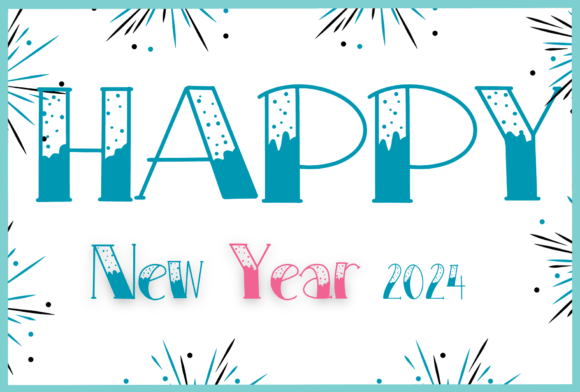
The Perfect Font for a Bright New Year
As you sit down to plan your next creative project, have you ever found yourself stuck in a design rut? You’ve got a great idea, but something’s missing – that special something that takes your design from ordinary to extraordinary. For many designers, the answer lies in the right font. And, if you’re looking for a font that’s sure to bring a touch of festive flair to your creations, look no further than the Happy New Year Font.
This lovely display font is designed to elevate any project, whether you’re working on a holiday-themed campaign, a New Year’s celebration invitation, or simply a design that needs a little extra sparkle. With its festive feel and versatility, the Happy New Year Font is an invaluable asset to any designer’s library, and a must-have for anyone looking to add a little extra joy to their designs.
Happy New Year Font Key Features
- Font Family: A unique and stylish font designed specifically for New Year’s celebrations, with a bold and festive feel.
- Unique Characteristics: The font features intricate and dynamic designs, with a mix of modern and traditional elements, making it perfect for adding a touch of elegance and sophistication to New Year’s-themed designs.
Happy New Year Font Review
Overall, I think the Happy New Year Font has some great qualities, but it’s not without its limitations.
- Unique and festive design that captures the spirit of New Year’s celebrations
- Wide range of font styles, from bold to cursive, to suit various design needs
- Good for use in invitations, social media posts, and other short-form content
- Limited scalability: may become pixelated or distorted when enlarged
- Not ideal for long-form content, such as articles or essays
- Some font styles may be too flashy or overwhelming for certain designs
I think the Happy New Year Font is a fun and festive addition to any design project, but it’s essential to use it judiciously. While it excels in short-form content and festive designs, it may not be the best choice for more formal or lengthy projects. With a little creativity and restraint, however, it can add a lot of personality to your designs.
Getting the Most Out of the Happy New Year Font
For optimal results, use the Happy New Year font in conjunction with bold and italic text to create a festive and celebratory feel. You can also use the font in conjunction with graphics and images to create eye-catching designs.
The Happy New Year font is ideal for use in New Year’s Eve invitations, party decorations, and social media posts. You can also use the font in business settings to create a festive and celebratory atmosphere during the holiday season.
Alternatives to Happy New Year Font for Designers
Great Vibes Font is a modern, elegant script font perfect for adding a touch of sophistication to your designs. It is ideal for use in titles, headings, and other text elements where a stylish and refined feel is desired. Compared to Happy New Year Font, Great Vibes Font has a more refined and less playful look, making it suitable for a wider range of design applications.
Pacifico Font is a beautiful, cursive font that exudes a sense of relaxation and calmness. It is perfect for use in designs where a soft, gentle feel is desired, such as in invitations, brochures, and other promotional materials. Unlike Happy New Year Font, Pacifico Font has a more laid-back and less festive tone, making it suitable for designs that don’t require a loud or attention-grabbing feel.